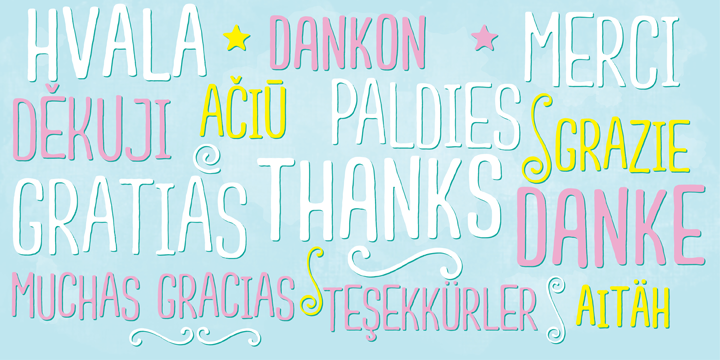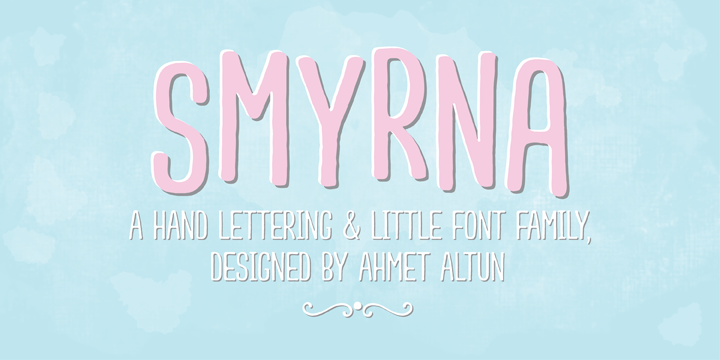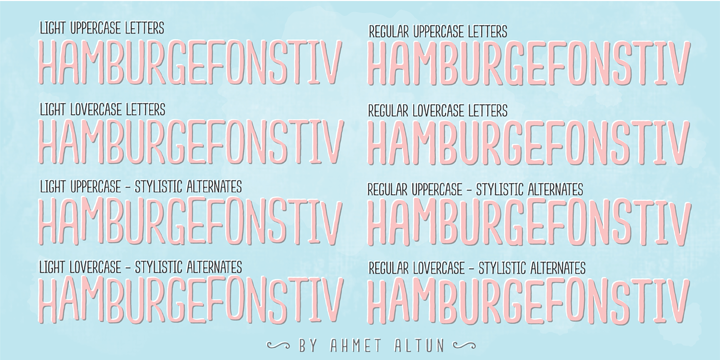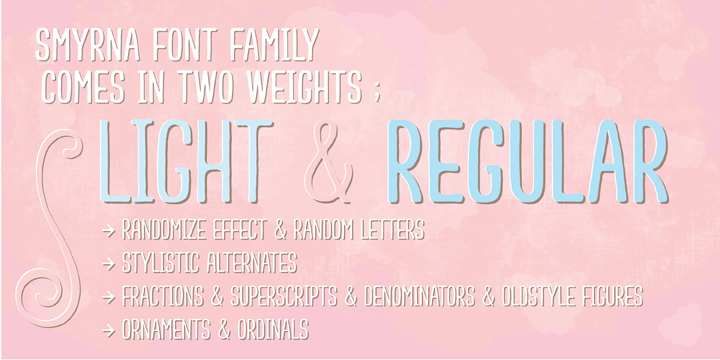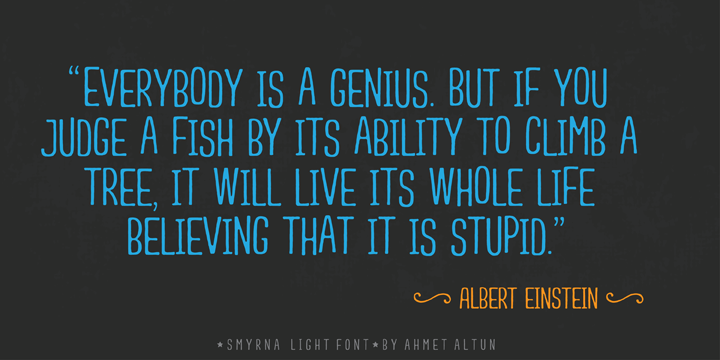
Smyrna is a hand display font family. This typeface has two styles and was published by Ahmet Altun.
Smyrna is a hand-drawn font family comes in two weights; light and regular. Thanks to its randomize effect, you can write 4 options for each letter. When the Smyrna Font used in OpenType-savvy applications, its Stylistic Alternates feature produce a random-like effect on the terminal points of the letters. So, typing is no longer monotony; it’s returning full of fun.
The name “Smyrna” comes from the city I live, Izmir. Smyrna is the name of the ancient city located at modern Izmir.